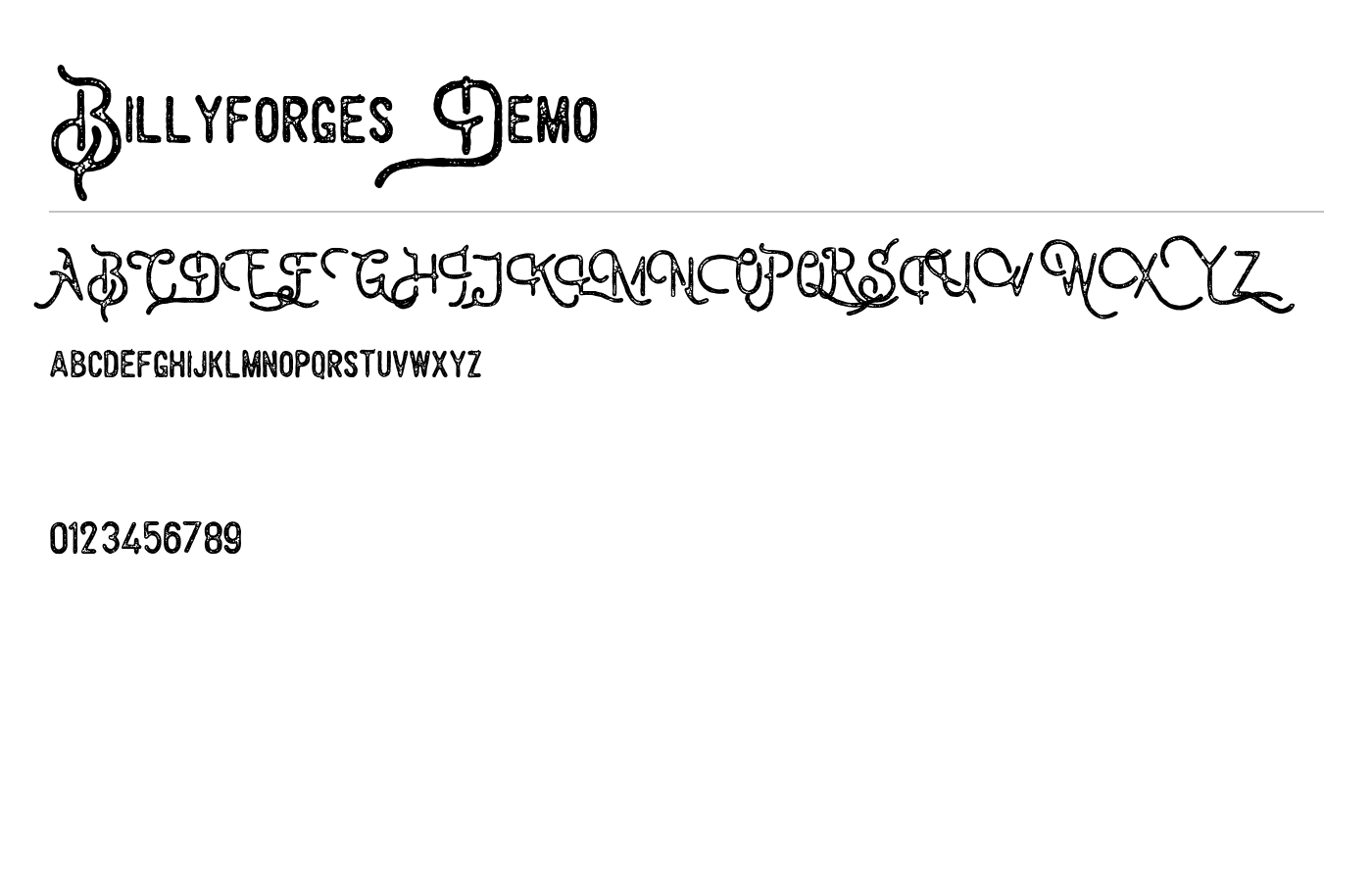
Billyforges Demo is a distinctive serif font with a vintage, hand-crafted feel, featuring ornate, almost calligraphic uppercase letters that blend elegant curves and sharp details with a slightly weathered texture. Its unique style makes it well-suited for artistic, rustic, or retro-themed branding and design projects, especially for logos, posters, and decorative headlines where a creative, expressive touch is desired. This font adds character and personality, lending an antique charm that stands out without overwhelming the overall design.
Billyforges Demo Font
About Billyforges Demo Font
| Font family | Billyforges Demo Font |
| Designer | Burntilldead |